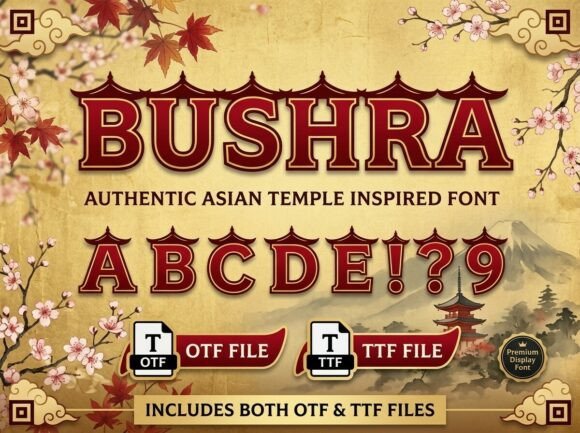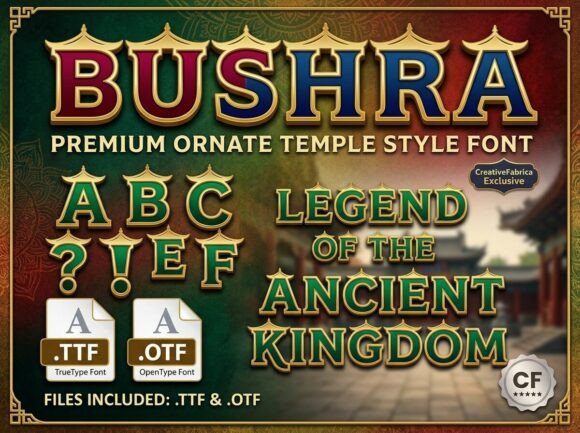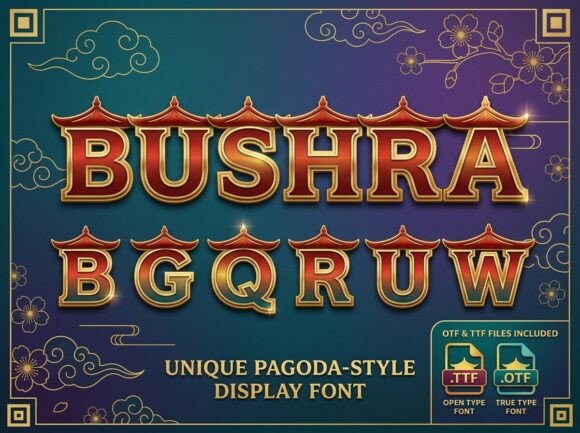
Bushra Font: Transport Your Designs to the Far East with a Unique Pagoda-Style Display Font
Are you looking for a font that can add an exotic touch to your designs? Do you want to evoke the elegance and mystique of ancient temples in your branding, advertising, or craft projects? Look no further than Bushra, a stunning display font inspired by traditional pagoda architecture. In this article, we’ll explore the unique features of Bushra and how it can elevate your designs to new heights.
The Inspiration Behind Bushra
Bushra is a one-of-a-kind font that draws inspiration from the majestic pagodas of the Far East. Each letterform is carefully crafted to resemble a miniature pagoda, complete with a distinctive red-roofed cap and a rich gold-to-teal gradient. The result is a font that exudes the serenity, wisdom, and cultural heritage of ancient temples.
Design Features of Bushra
Bushra’s design features are truly unique and captivating. Here are some of the key elements that make this font stand out:
- Pagoda-style letterforms: Each letter in Bushra is designed to resemble a miniature pagoda, complete with intricate details and architectural flair.
- Red-roofed pagoda cap: The crowning glory of each letterform is the distinctive red-roofed pagoda cap, which adds a pop of color and whimsy to your designs.
- Gold-to-teal gradient: The gradient effect used in Bushra echoes the warm, sun-kissed tones of ancient temples, adding a sense of depth and luxury to your designs.
Use Cases for Bushra
Bushra is a versatile font that can be used in a variety of design projects, including:
- Cultural branding: Bushra is perfect for branding projects that require an exotic, Eastern-inspired flair, such as cultural festivals, museums, or historical landmarks.
- Travel agency logos: Transport your customers to the Far East with Bushra, ideal for travel agencies specializing in Asian destinations.
- Asian-fusion restaurant menus: Add a touch of elegance and sophistication to your restaurant menus with Bushra, perfect for Asian-fusion cuisine or traditional Japanese, Chinese, or Korean restaurants.
Why Choose Bushra?
So why choose Bushra over other fonts? Here are just a few reasons why Bushra stands out:
- Unique and eye-catching: Bushra is a one-of-a-kind font that will grab attention and leave a lasting impression on your audience.
- Cultural significance: Bushra’s inspiration from traditional pagoda architecture adds a layer of cultural depth and authenticity to your designs.
- High-quality design: Bushra’s intricate details and gradient effects make it a high-quality font that will elevate your designs to new heights.
Tips for Using Bushra Effectively
Here are some tips for using Bushra effectively in your designs:
- Use it sparingly: Bushra is a display font, so use it sparingly to add emphasis and visual interest to your designs.
- Pair it with complementary fonts: Pair Bushra with clean, simple fonts to create visual contrast and hierarchy in your designs.
- Experiment with colors: While Bushra’s gold-to-teal gradient is stunning, don’t be afraid to experiment with other colors to create unique effects.
In conclusion, Bushra is a unique and captivating font that can add an exotic touch to your designs. With its pagoda-style letterforms, red-roofed pagoda cap, and gold-to-teal gradient, Bushra is perfect for cultural branding, travel agency logos, and Asian-fusion restaurant menus. Whether you’re a designer, crafter, or DIY enthusiast, Bushra is a font that will transport your designs to the Far East and inspire your creativity.